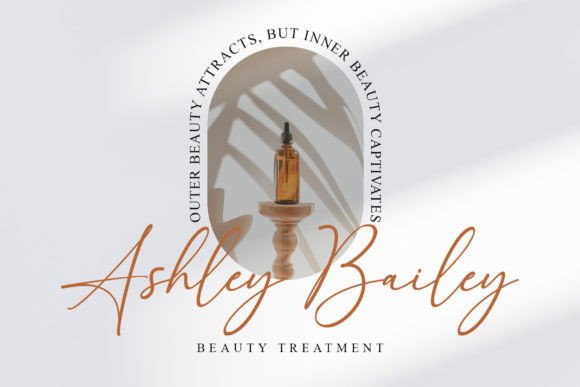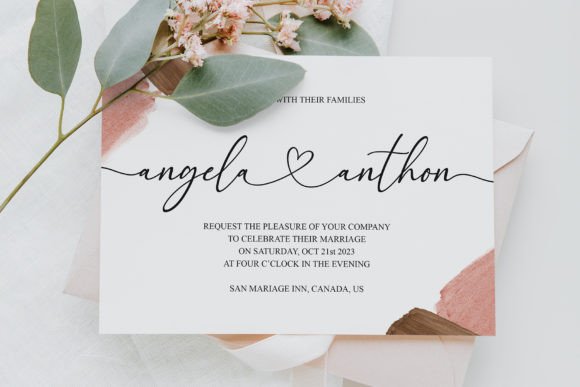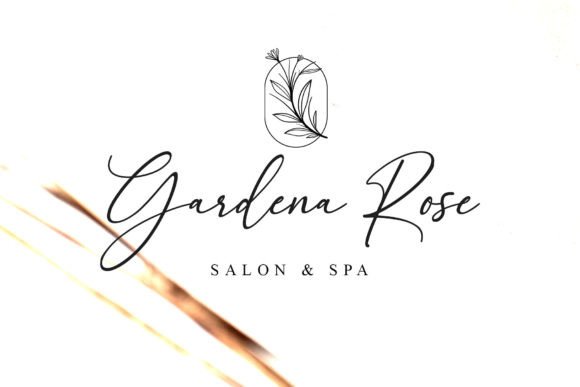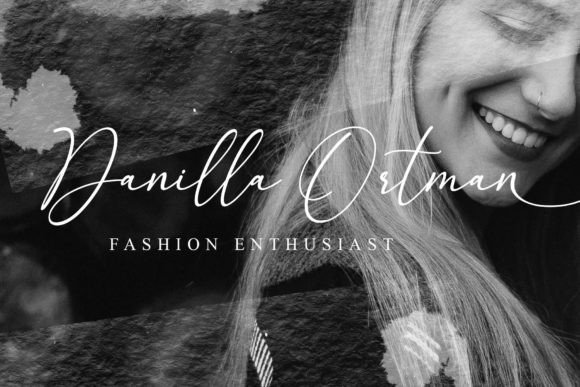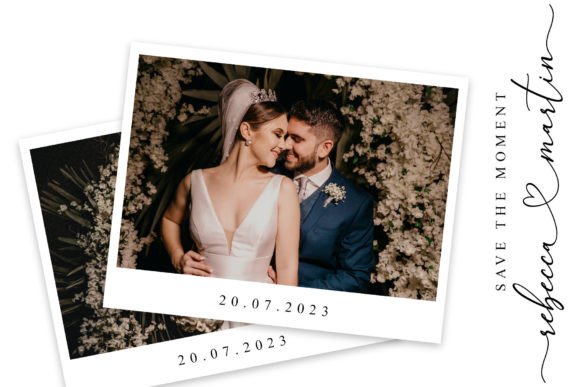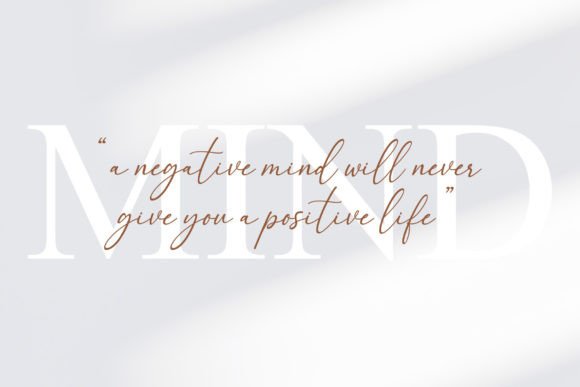
Discover the Sweet Charm of Hello Mellinda Font
Have you ever stumbled upon a font that immediately sparks your creativity and transports you to a world of romance and whimsy? For designers, this moment is a treasure, and it’s exactly what happens when you come across the Hello Mellinda Font. This delightful handwritten font is designed to evoke the feeling of a warm summer day, filled with laughter and love.
Hello Mellinda Font is perfect for adding a personal touch to your designs, making it ideal for wedding invitations, cards, and other projects that require a delicate and joyful feel. Its dainty lines and playful curves will instantly add a touch of elegance and sophistication to any design. Whether you’re a seasoned designer or a beginner looking to add some personality to your work, Hello Mellinda Font is a valuable asset to have in your toolkit.
- Unique Characteristics: The font features a unique blend of modern and vintage elements, with intricate details and flourishes that give it a distinctive, hand-crafted look.
- Style Variations: The font comes in multiple styles, including Regular, Italic, Bold, and Bold Italic, allowing designers to add depth and variety to their typography.
Hello Mellinda Font Review
As a designer, I’ve had the chance to play around with the Hello Mellinda font, and I must say it’s got its charm. ✨ The rounded edges and friendly feel make it perfect for creating a welcoming atmosphere in any design. It’s great for headings, titles, and even body text in certain contexts.
The font’s versatility is also worth noting. It comes in a range of weights, from light to bold, which allows for a lot of flexibility in terms of design. The italic and oblique styles are also useful for adding some extra flair to your text.
- ✨ Friendly, approachable feel
- ✨ Versatile weight options
- ✨ Useful italic and oblique styles
Limitsations:
- ⚠️ Limited legibility at small font sizes
- ⚠️ May not be suitable for formal or professional designs
Overall, I think Hello Mellinda is a solid choice for designers looking for a friendly, approachable font. While it may not be perfect for every project, it’s definitely worth considering for the right context.
Use the “Hello Mellinda Font” to add a touch of elegance and sophistication to your designs.
The “Hello Mellinda Font” is ideal for:
Business cards and marketing materials
Event promotions and posters
Personalized gifts and station